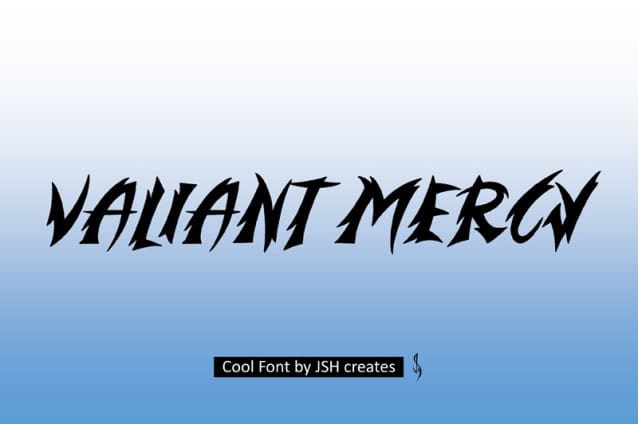
Valiant Mercy Font
Valiant Mercy Font, cool gothic font. Perfect for advertising and display purposes, including banners, book covers, shirts, posters, logos and much more!